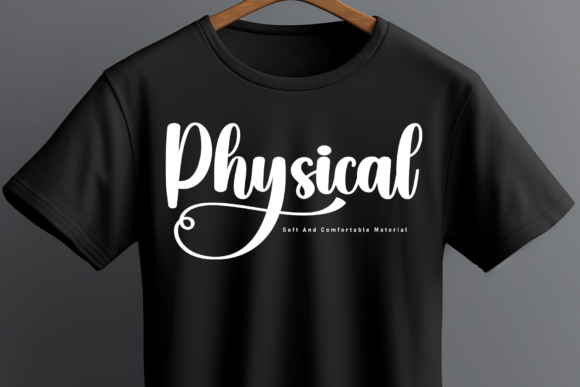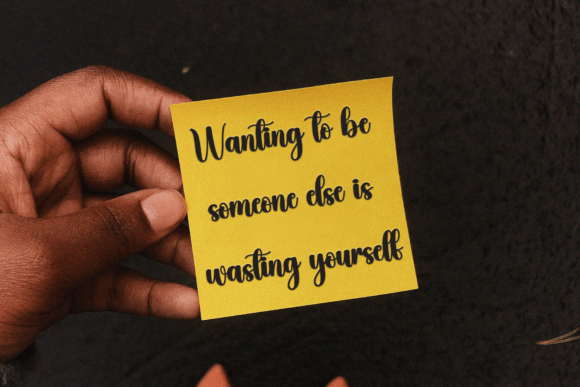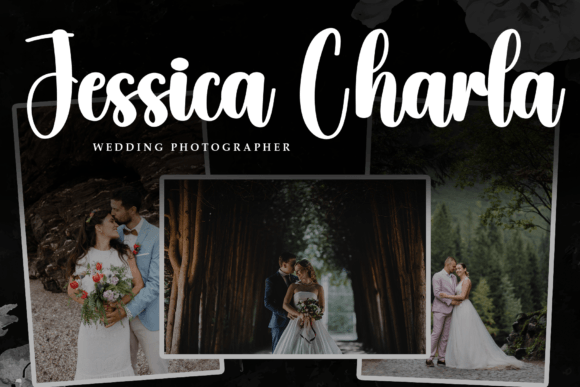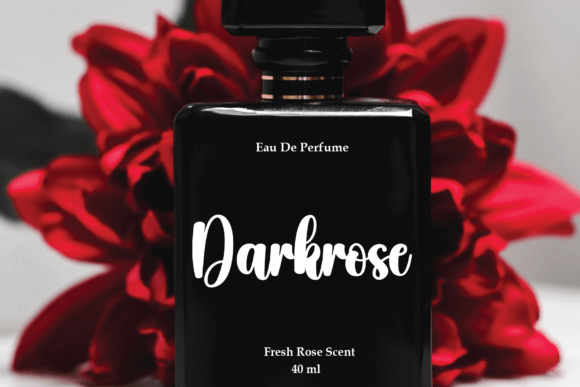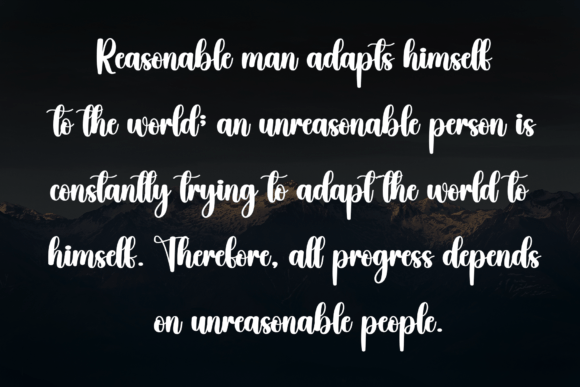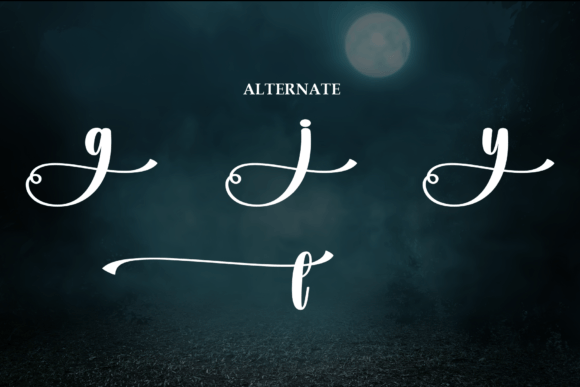
Introduction to Scarynight Font
Have you ever found yourself stuck in front of your computer, staring blankly at a blank page, trying to bring your creative project to life? You’ve got the idea, the passion, but somehow, it’s just not translating onto the screen. It’s moments like these that make us appreciate the power of the right design resource.
That’s where Scarynight Font comes in – a masterfully crafted handwritten font that’s sure to elevate your projects to new heights. Its unique blend of classy calligraphic influences and contemporary flair makes it the perfect addition to any design arsenal.
Whether you’re a seasoned designer or just starting out, Scarynight Font is a valuable asset that’s sure to bring your creative vision to life. With its high-quality design and transparent background, it’s the perfect choice for any project – and the best part? It’s available for free download, making it an absolute must-have for any serious design enthusiast.
Key Features of Scarynight Font
- High-quality design resource ideal for creative projects, including spooky and Halloween-themed designs.
- Transparent background, allowing for seamless integration with various design elements and backgrounds.
- Scarynight Font is available in a single weight, but its unique design makes it suitable for a variety of design applications.
- Resolution: Scalable up to 72 dpi, making it suitable for use in print and digital designs.
- Perfect for designers and artists looking for a high-quality, free design resource to elevate their creative projects.
Honest Review: Scarynight Font
As a designer, I’m always on the lookout for high-quality design resources to elevate my creative projects. The Scarynight Font has caught my attention, and I’m excited to share my thoughts on it.
- Unique and spooky design aesthetic – perfect for Halloween-themed projects or horror movies
- High-quality typography with detailed strokes and textures
- Transparent background option for easy layering and compositing
- Only available in a limited number of font styles and weights
- No bold or italic variations available for more emphasis
Overall, the Scarynight Font is a solid addition to any designer’s toolkit. Its spooky design aesthetic and high-quality typography make it an excellent choice for creative projects. While it has some limitations, the free download option and transparent background make it a valuable resource for designers. I’d definitely recommend it for designers looking to add a touch of darkness to their work.
Using Scarynight Font in PowerPoint/Word
The Scarynight Font is also compatible with Microsoft PowerPoint and Word. To use it in these programs, simply select the font in the font menu and apply it to your text. The font’s high quality and transparent background make it a great choice for presentations and documents.
Tips for Getting the Most Out of Scarynight Font
For the best results, use the Scarynight Font in combination with other design elements that complement its style. Experiment with different font sizes, colors, and arrangements to create visually appealing designs. You can also use the font in conjunction with images and graphics to add depth and interest to your projects.
Common Use Cases for Scarynight Font
The Scarynight Font is suitable for a wide range of design projects, including invitations, posters, and social media graphics. Its high quality and transparent background make it a great choice for designs that require a touch of sophistication and elegance. You can also use the font in combination with other design elements to create unique and eye-catching graphics.